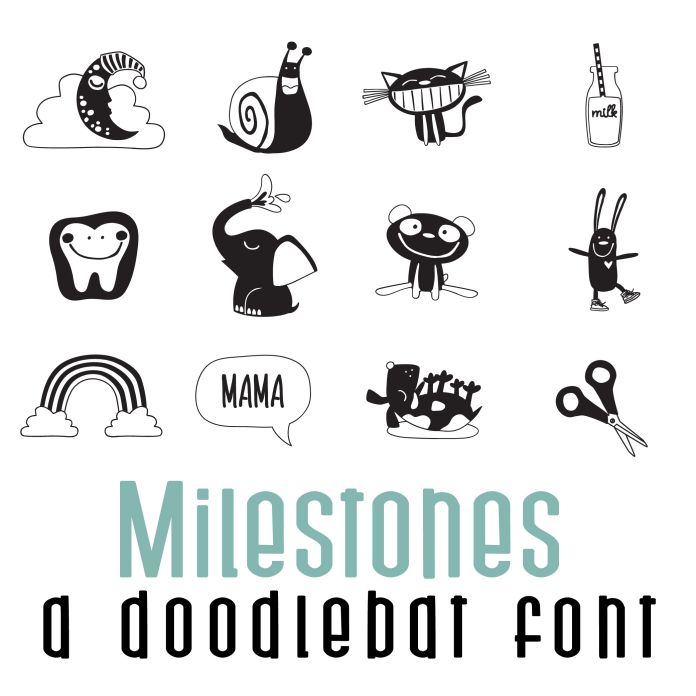
This fun doodlebat font features 26 milestone moment imagery, from first tooth to haircut. Perfect for cards, crafts, gifts, decor, scrap book pages, planner stickers and more!